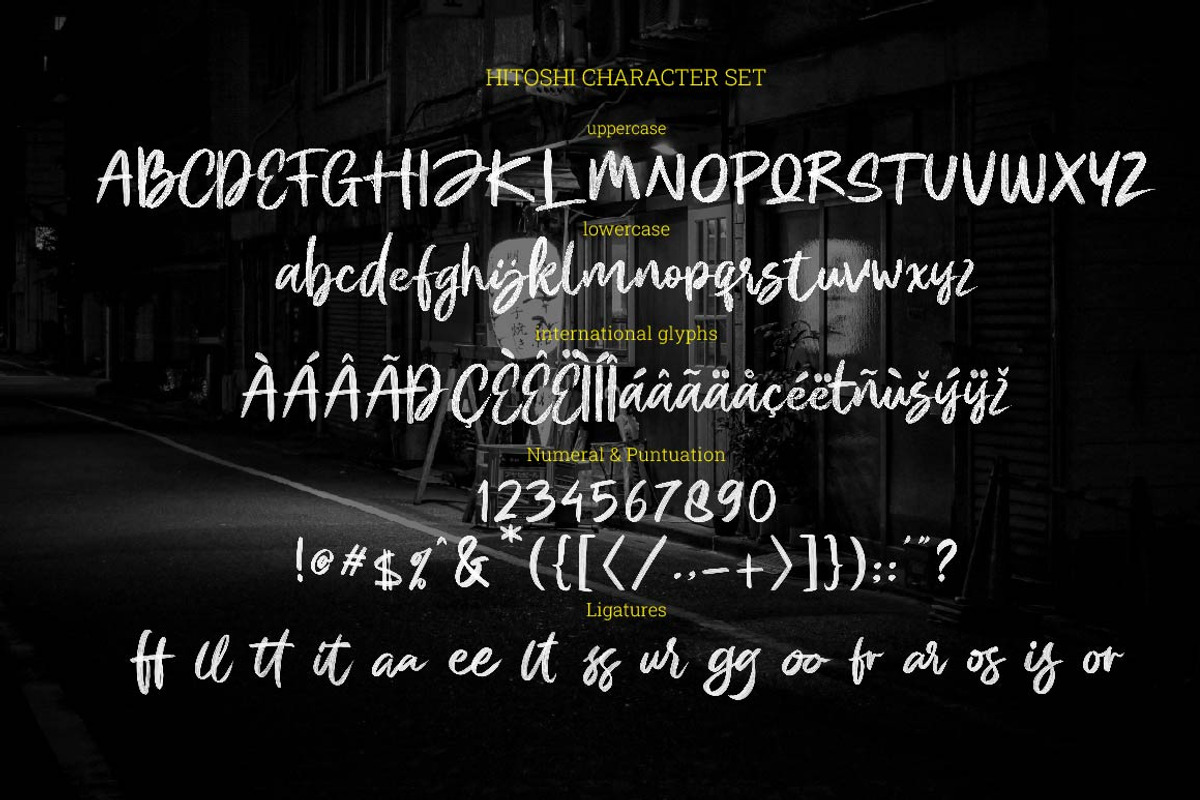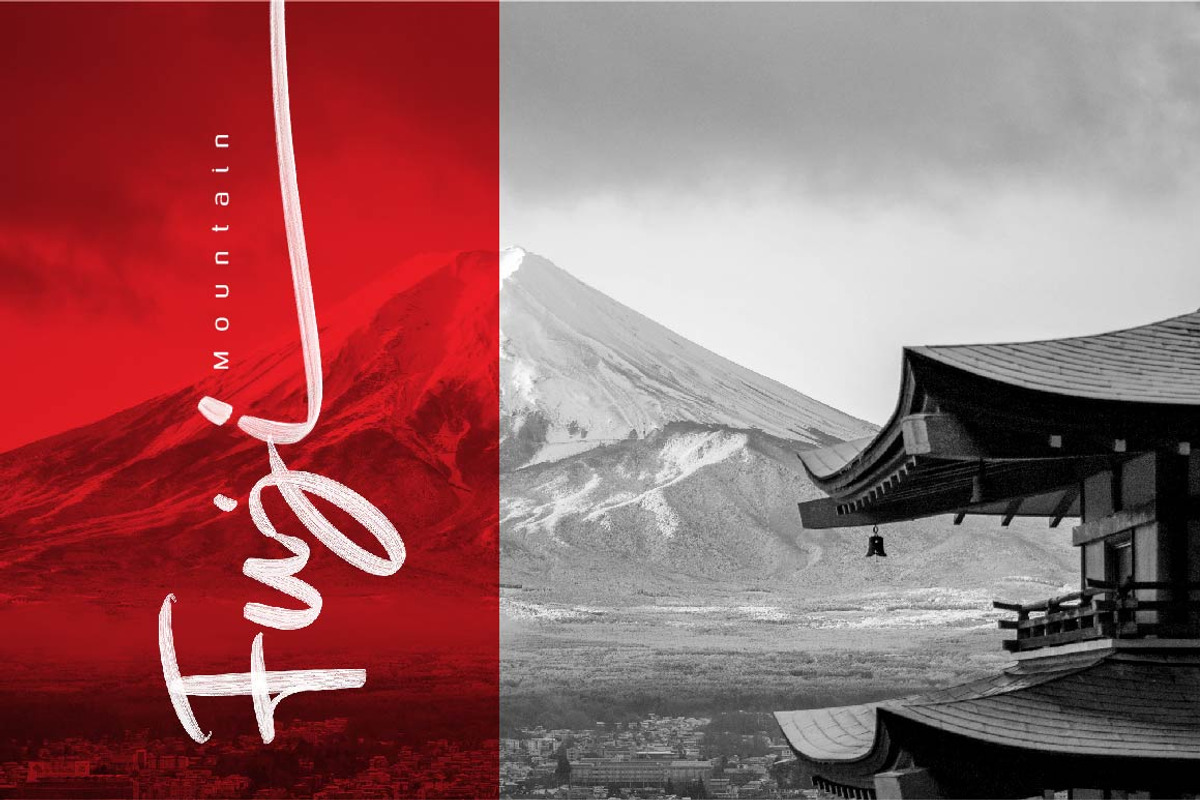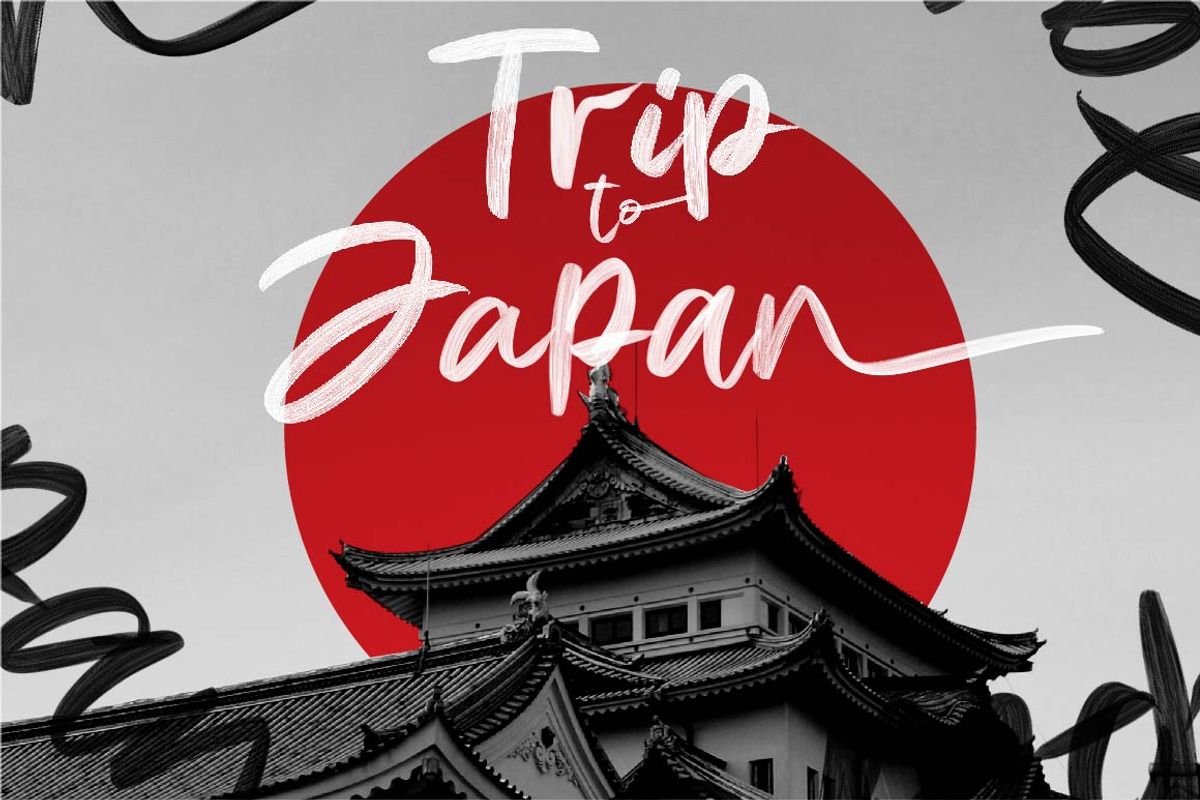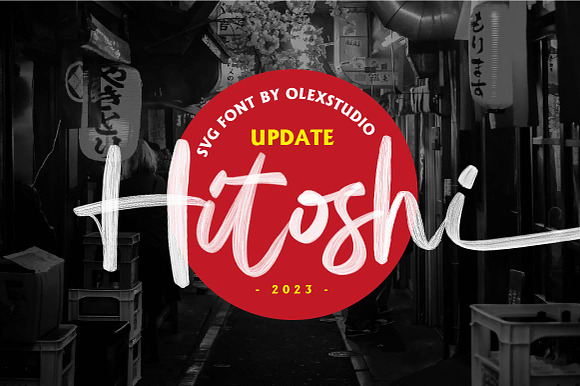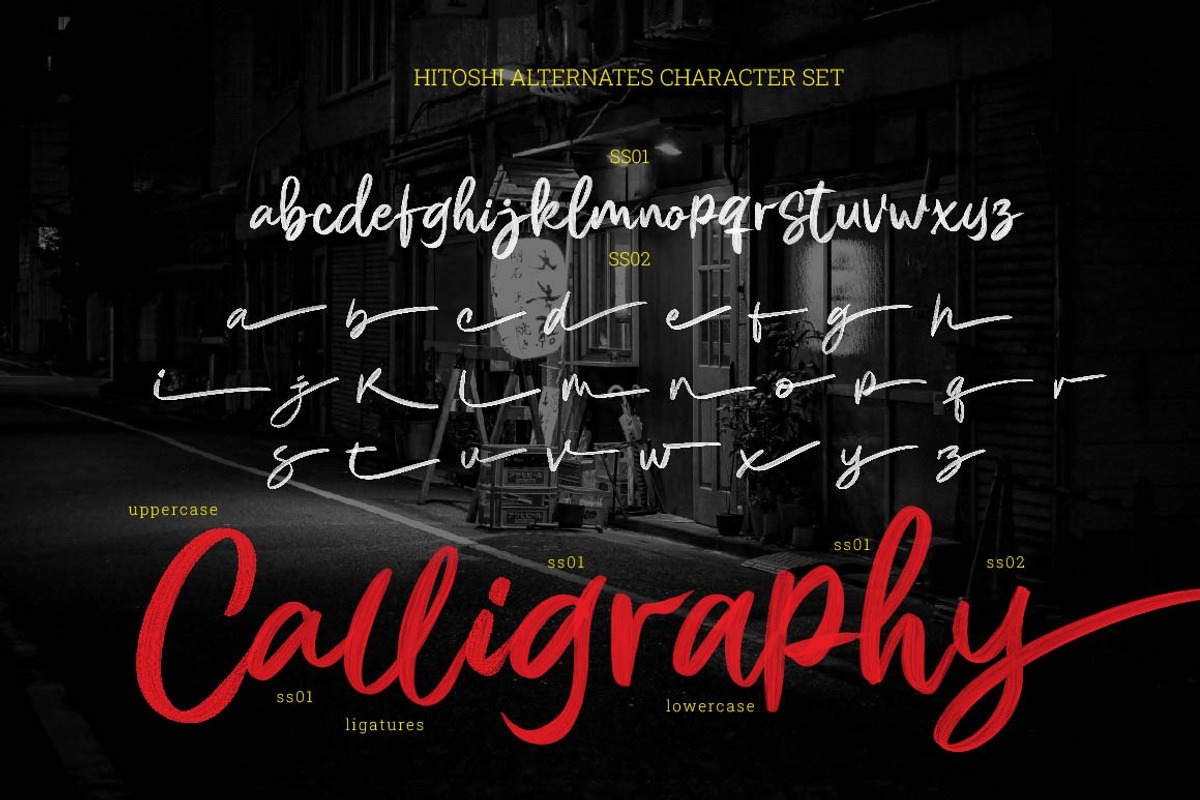
Hitoshi SVG Font
HITOSHI is a beautiful SVG font, This Font will look gorgeous on all your designs, invitation, book, branding materials, logo's, t-shirt, poster and all project design other.
HITOSHI font contains standard characters, lowercase, lowercase alternates, Uppercase , numbers, punctuation, ligatures and international glyphs.You will receive OTF, TTF SVG